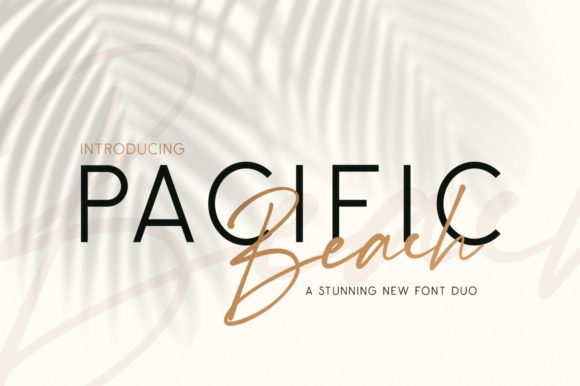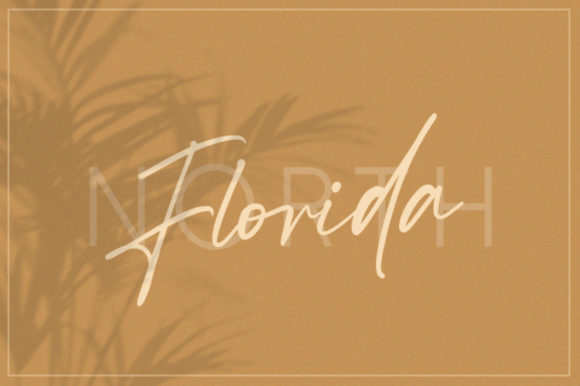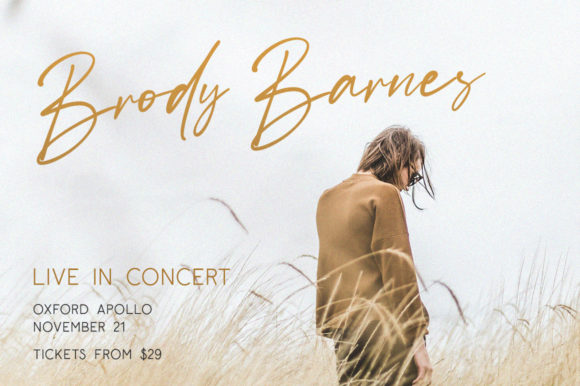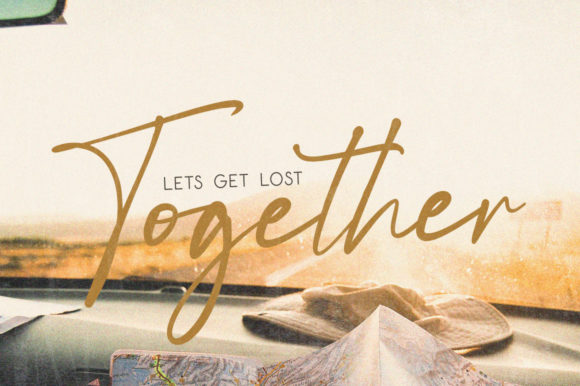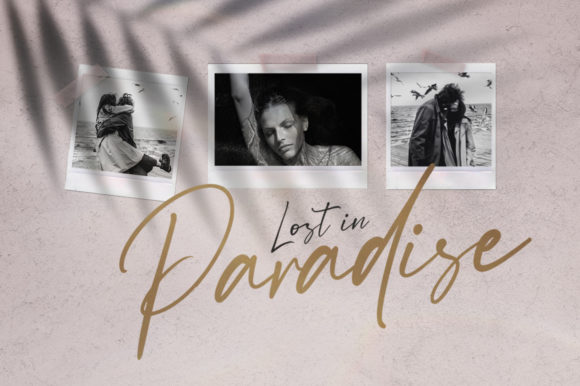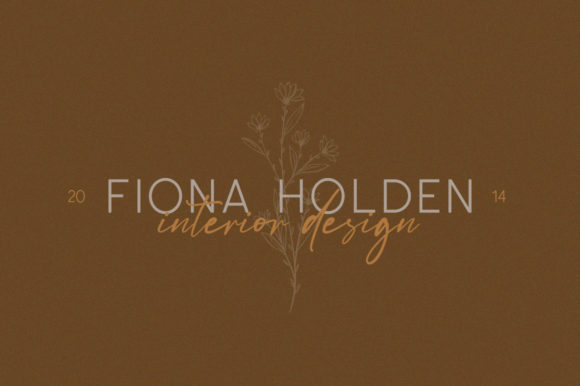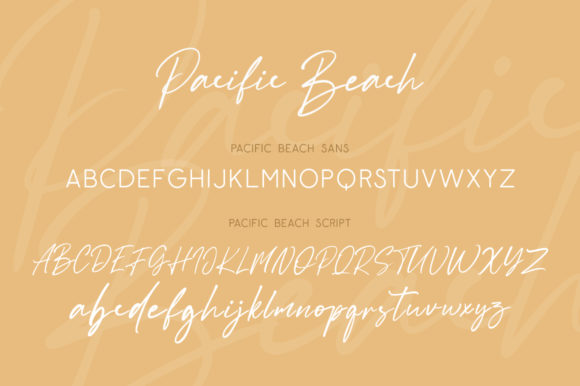
Pacific Beach Font
Pacific Beach duo is a match made in heaven. This is a beautiful combination of timeless elegance and authentic calligraphy. It features an incredibly classic style, while still keeping a friendly feel. This handwritten font is the perfect fit for making original and outstanding designs.